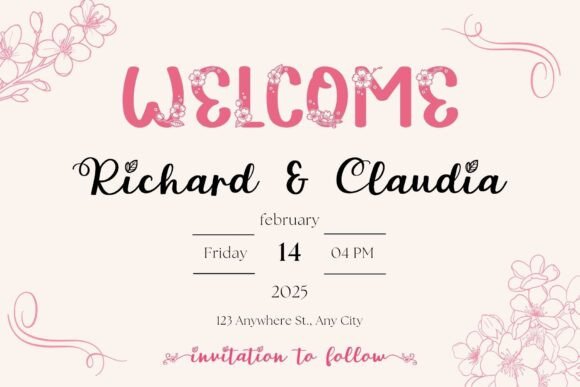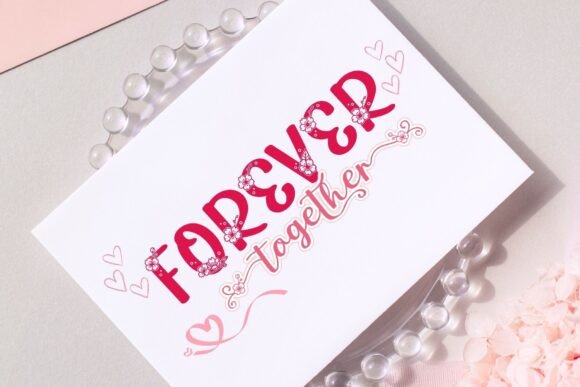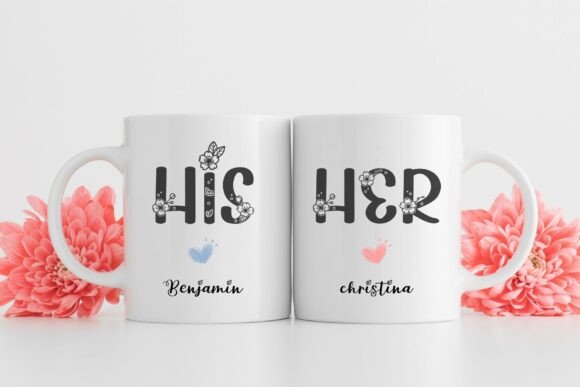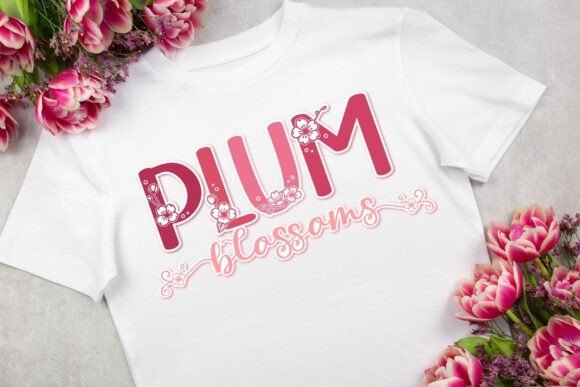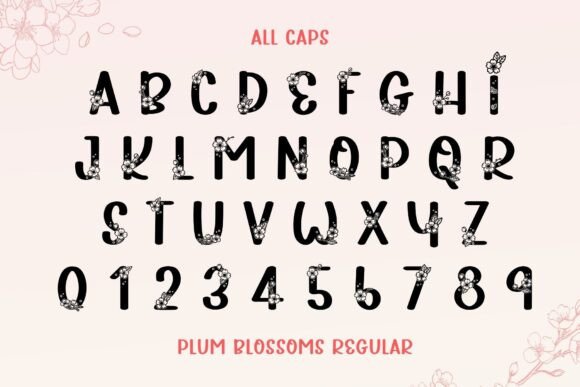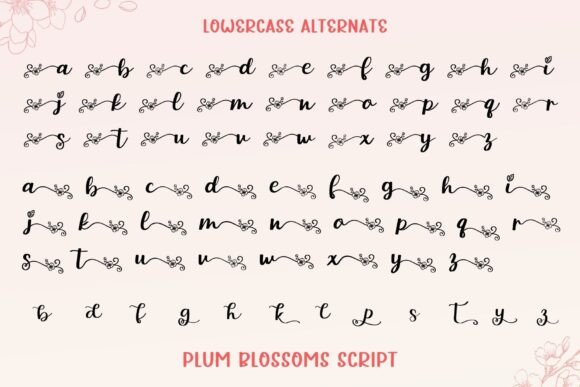
Introduction to Plum Blossoms Duo Font
Plum Blossoms is a stunning font duo that combines a bold display font with a delicate script font, creating the perfect harmony for your creative projects.
This beautiful display font duo is inspired by the elegance of plum blossoms, featuring intricate floral accents that embellish the bold uppercase letters The accompanying script font adds a soft, romantic touch with its flowing, hand-drawn style.
Key Features of Plum Blossoms Duo Font
Why Choose Plum Blossoms Duo Font?